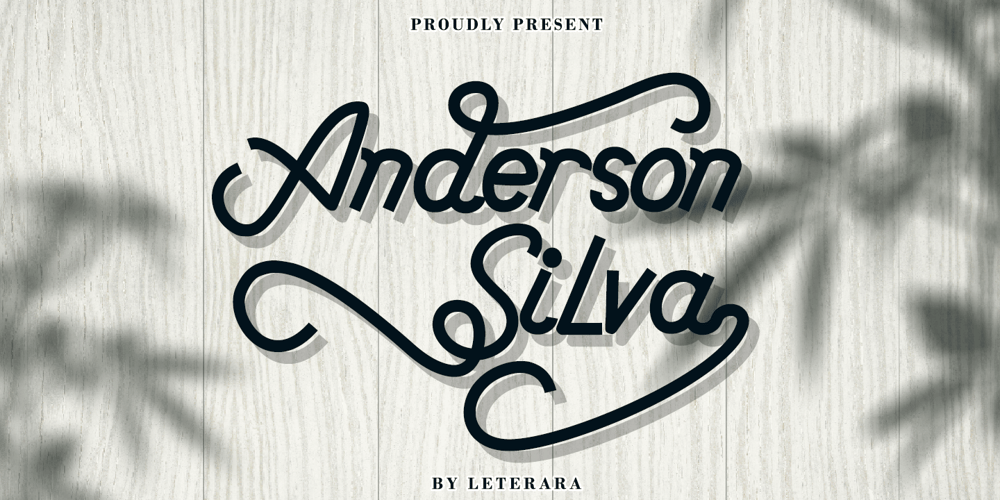
Anderson Silva Font Family was designed by Thomas Aradea and published by Letterara. Anderson Silva contains 2 styles and family package options. Anderson Silva is a monoline script that looks elegant and classy. It will add a charming touch to any crafting project!